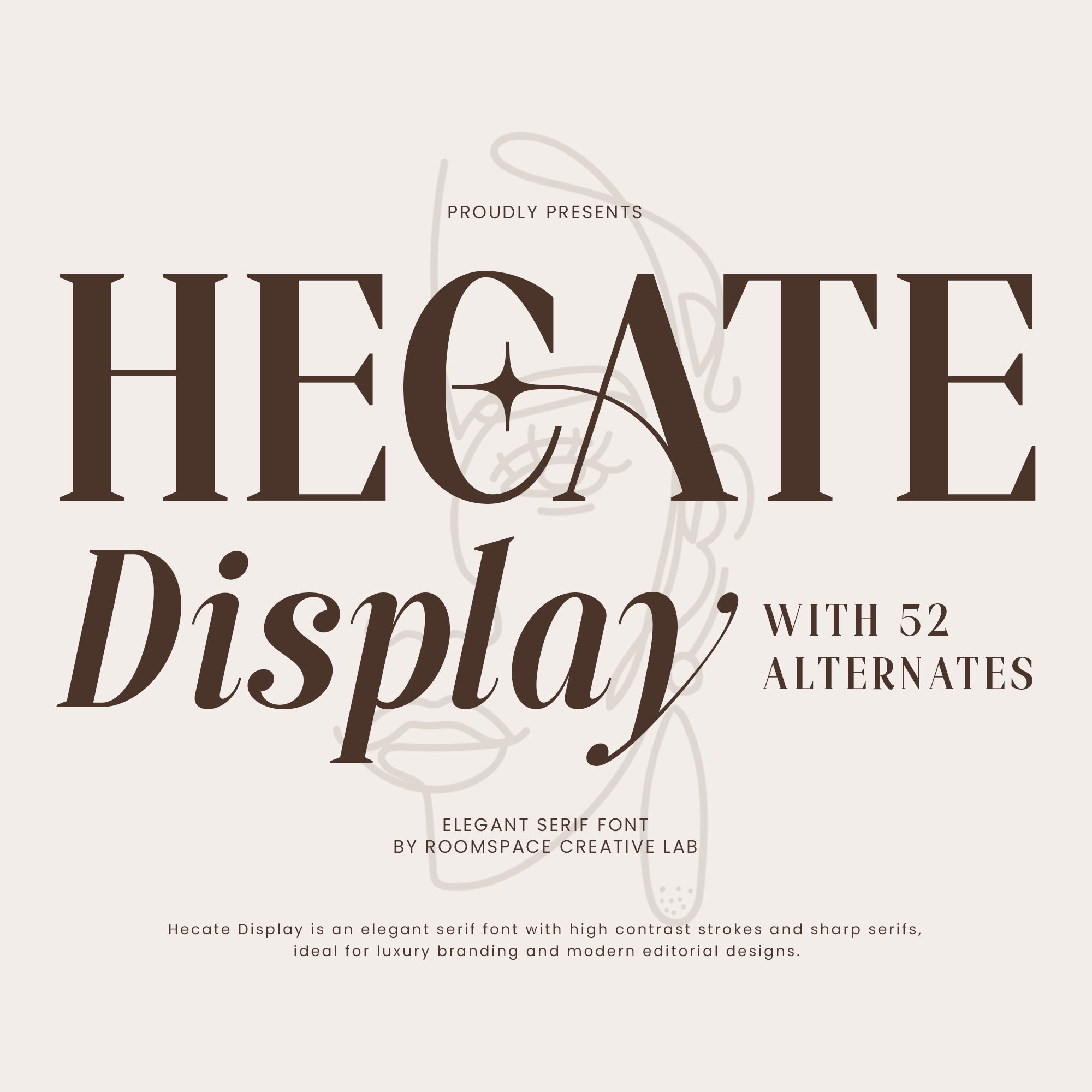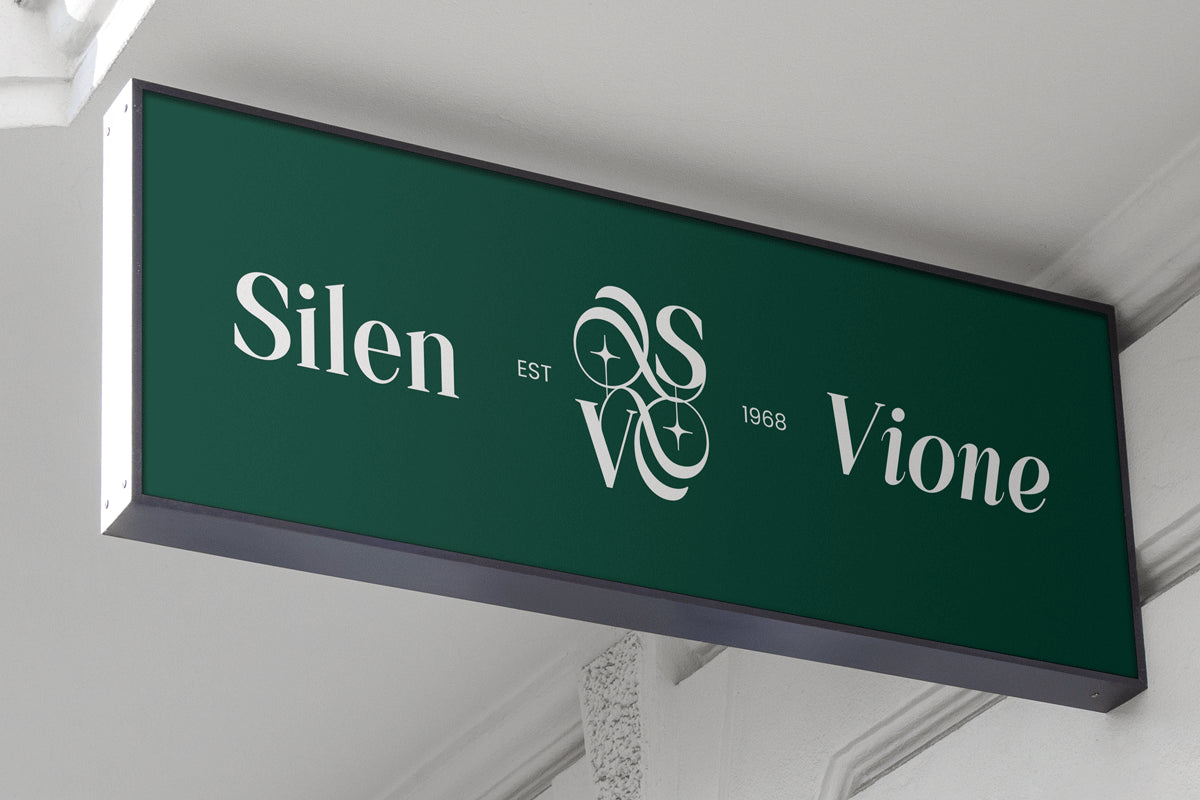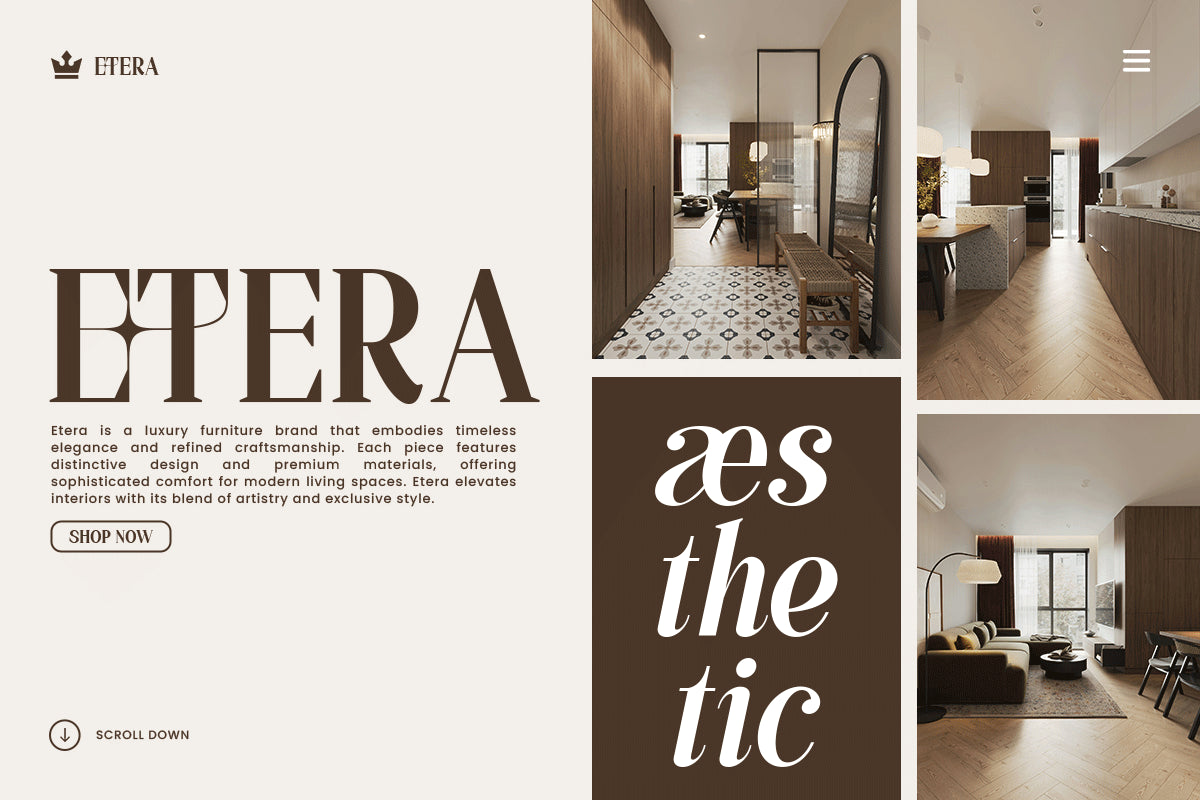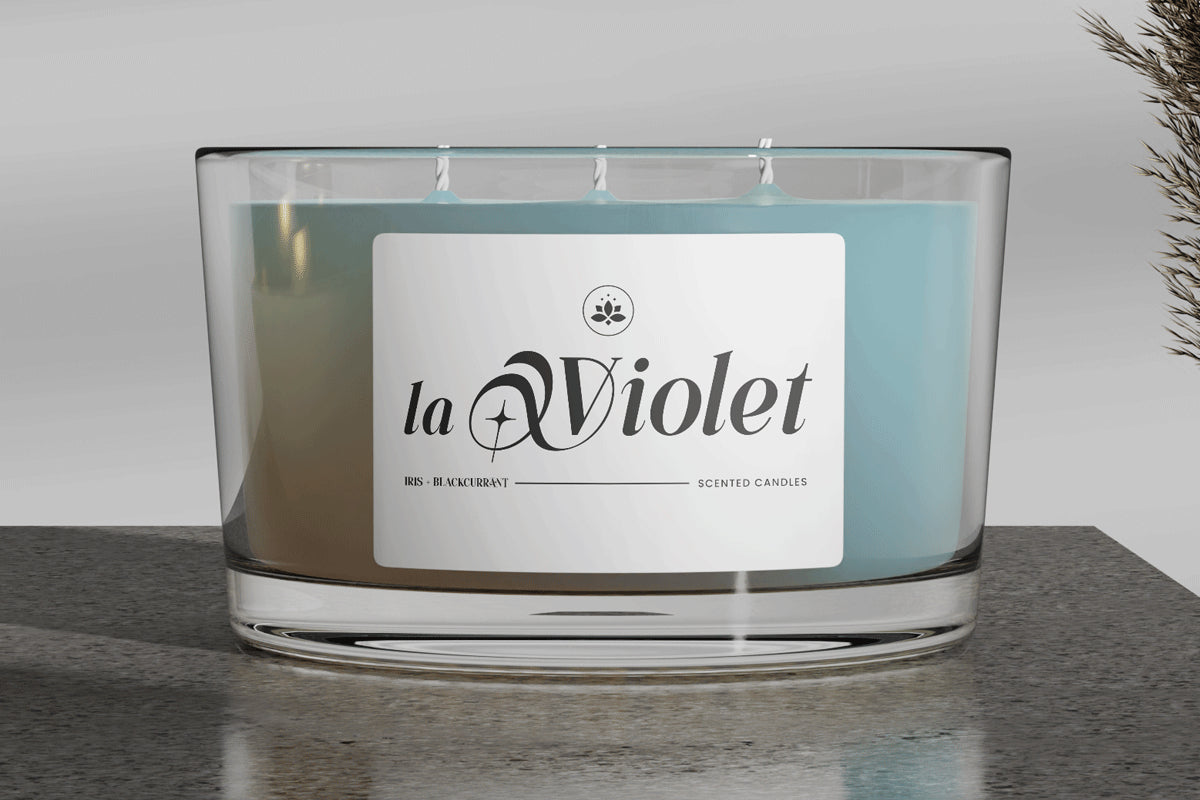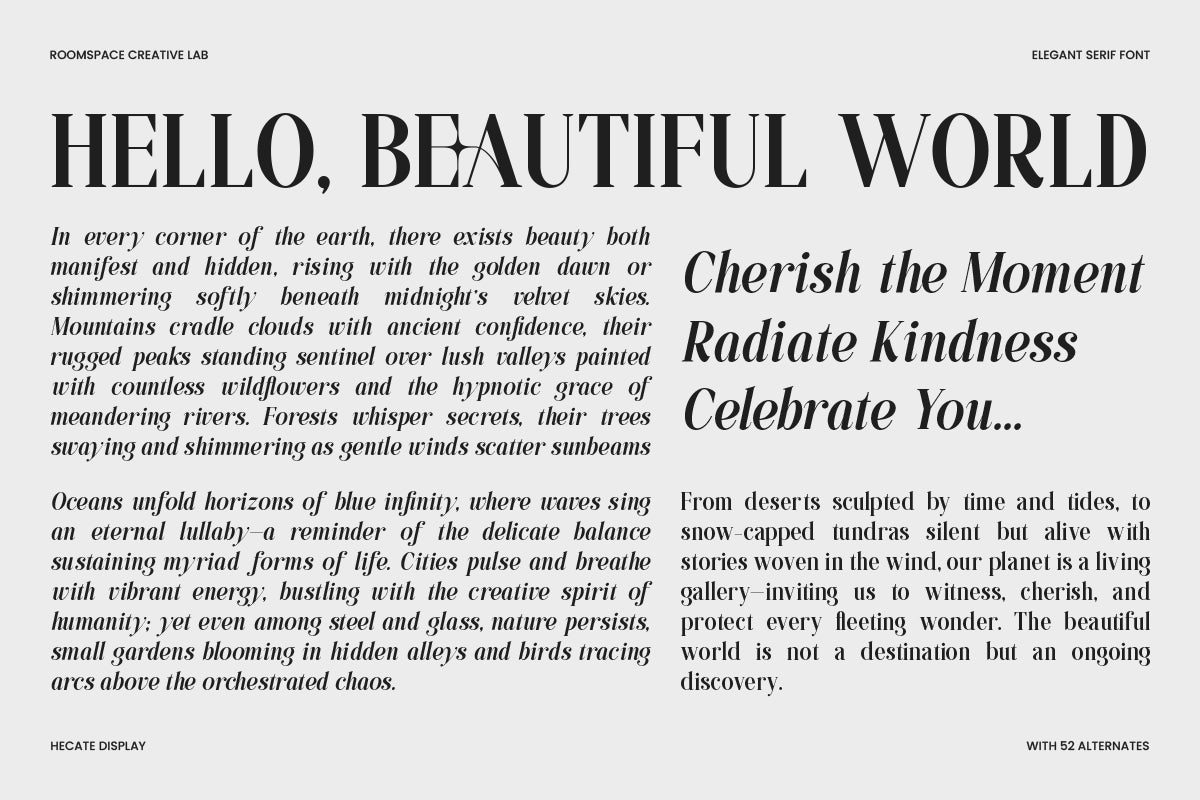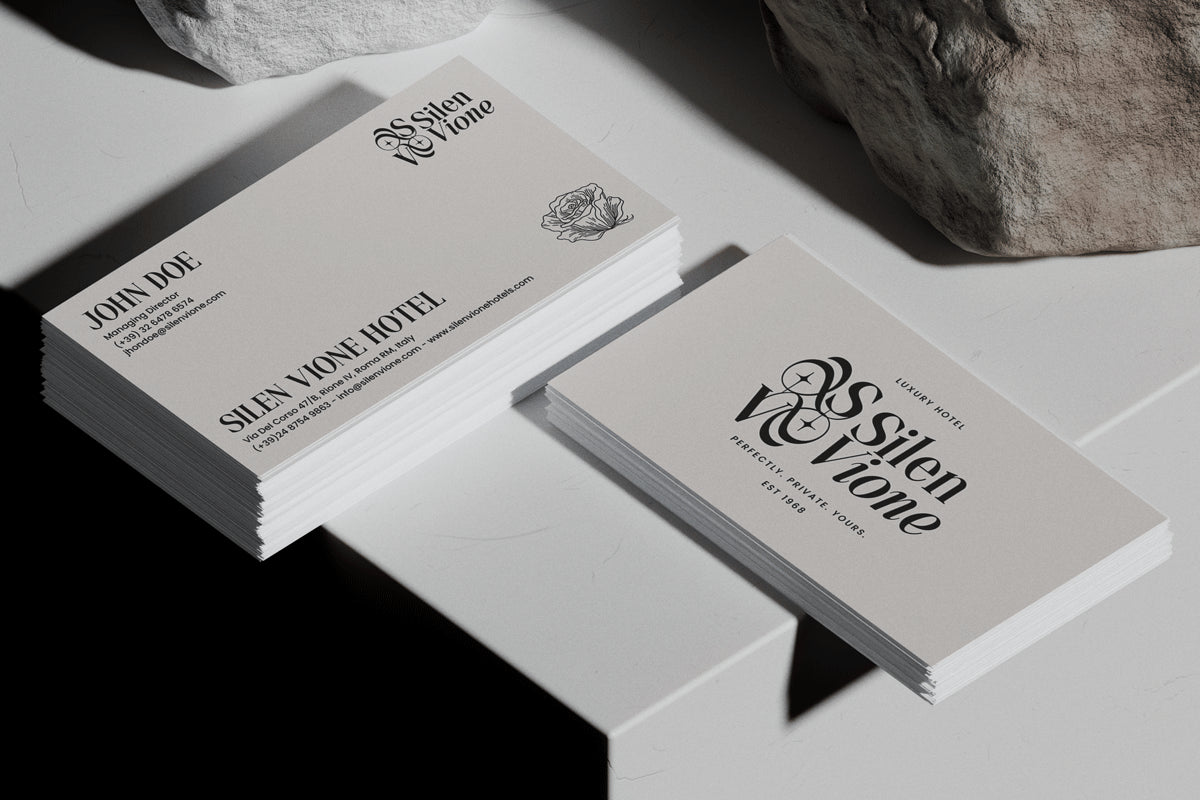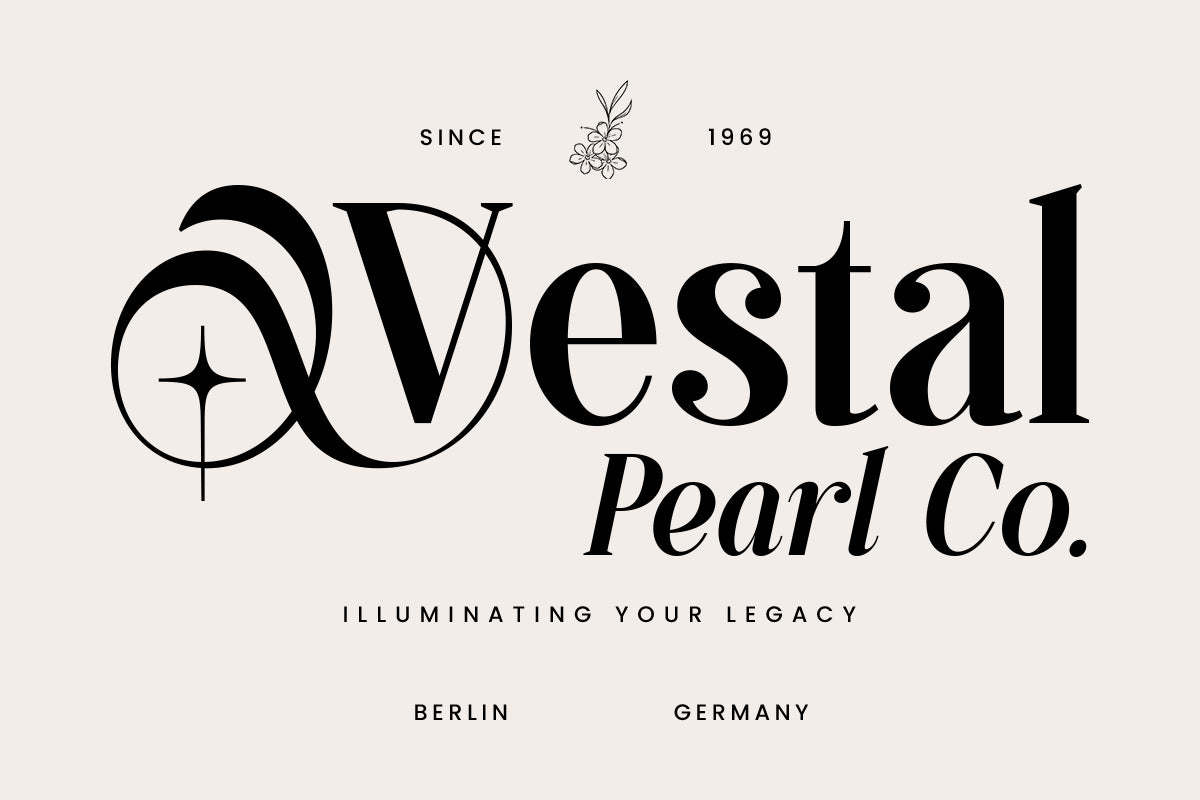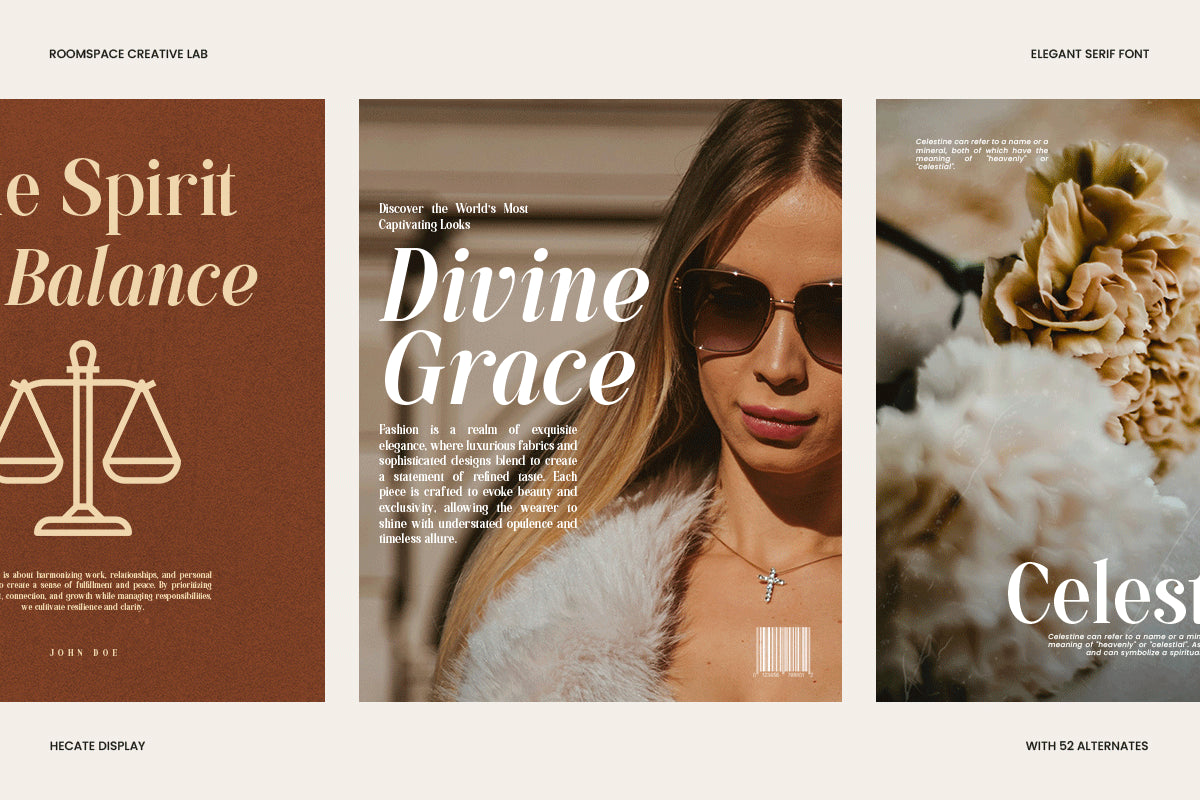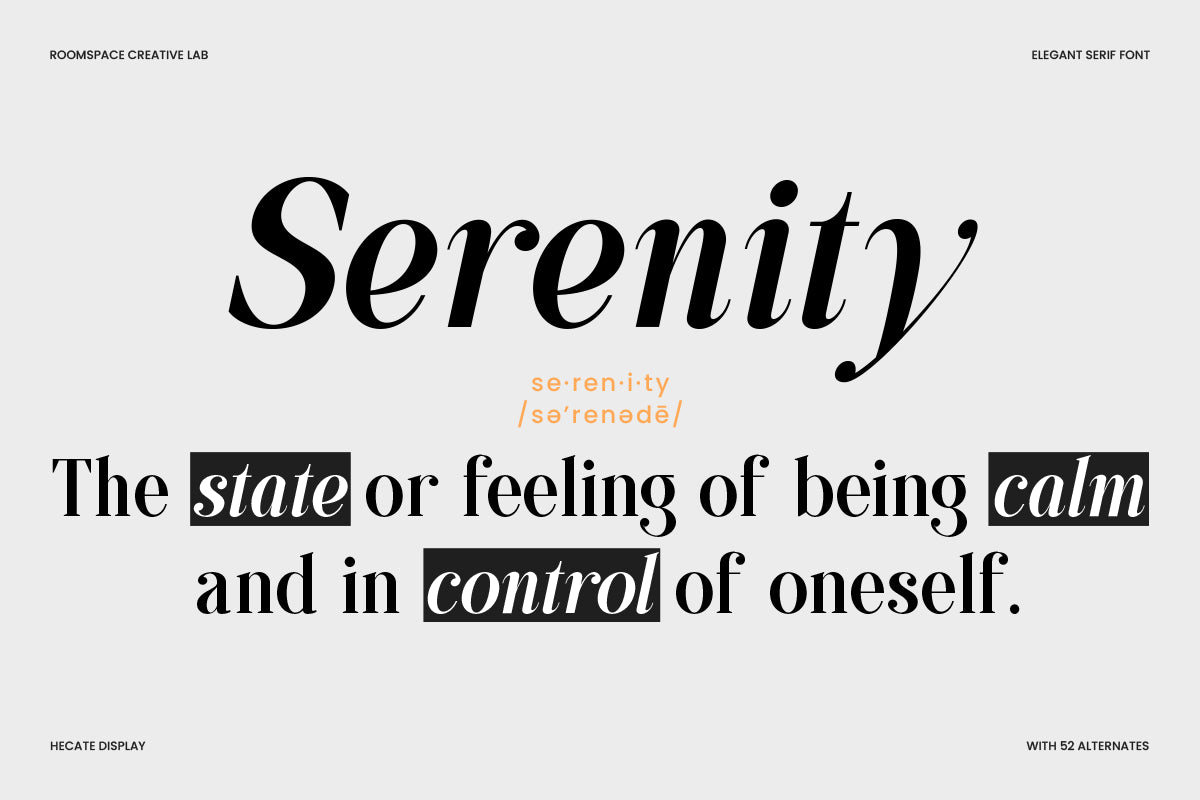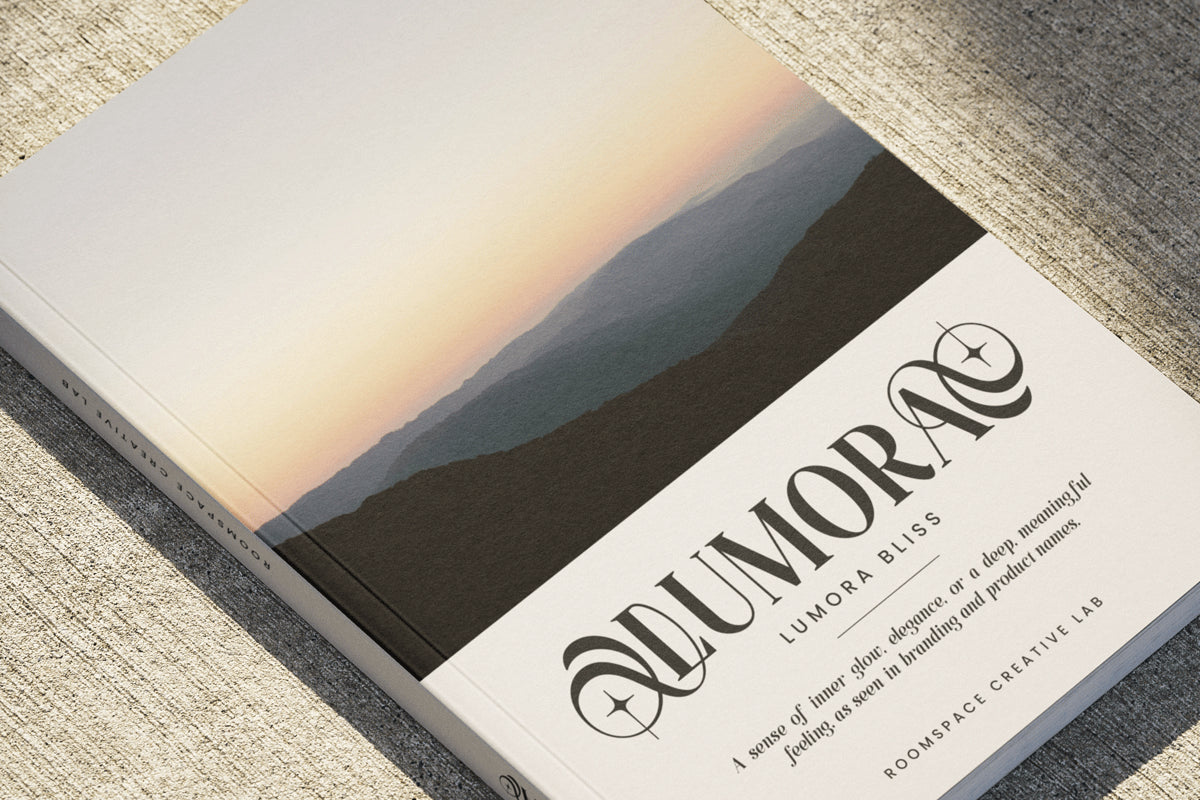
Hecate Display – Modern Editorial Serif Font
the Hecate Display is a refined serif typeface designed to bring sophistication and balance to your visual projects. Its high-contrast strokes and confident serifs make it ideal for those seeking a timeless yet modern aesthetic. Whether you’re creating luxury branding or elegant editorials, Hecate Display blends strength and grace in every letterform. Each character of Hecate Display was carefully crafted with precision featuring clean lines, graceful curves, and sharp serifs that give every composition a polished look. With 52 alternates, it provides flexible creative possibilities for crafting unique headlines, logos, or visual identities. The font maintains excellent legibility even at large sizes, making it a strong choice for impactful layouts. Perfect for branding, magazine titles, product packaging, invitations, and modern advertising, Hecate Display adapts effortlessly to both digital and print use. It’s a versatile serif font that balances elegance with functionality. Try Hecate Display today and elevate your next project with a professional, editorial touch.
• Regular and Italic
• Numbers & Punctuation
The Hecate Display is a refined serif typeface featuring high-contrast strokes and confident serifs, designed for a modern aesthetic. It includes Regular and Italic styles, 52 alternates, uppercase and lowercase letters, numbers, punctuation, and multilingual support, available in OTF, TTF, and WOFF formats, compatible with both PC and Mac.